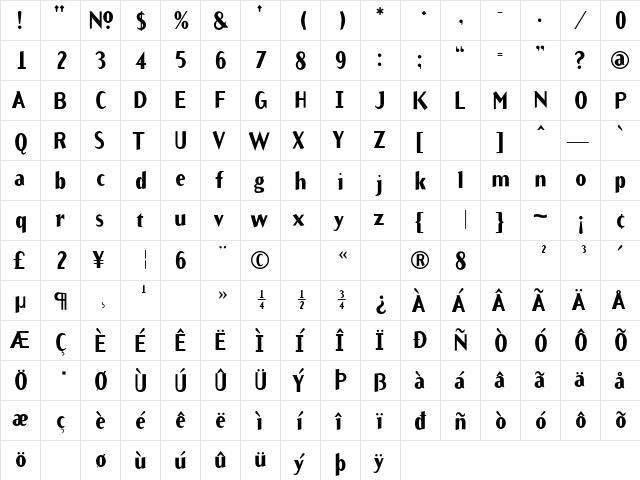
ArbitraryBold Regular
Design Context for ArbitraryBold Typeface
ArbitraryBold offers clean, dependable letterforms without strong stylistic allegiance, making it a practical choice for designers who need flexibility. The heavy weight commands attention and anchors typographic hierarchies.